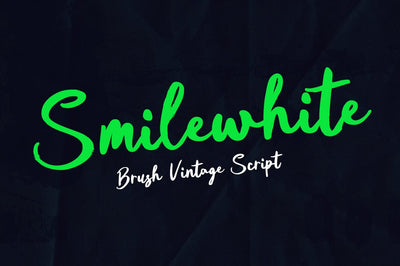
Smile White
Smile White brush with a creative atmosphere and perfect shape, inspired by today's beautiful display serifs. thick,
balanced and varied, born for luxury and beauty.
In my example I show how this script can be used. It's great for logotypes, branding, wedding invitations, romantic cards, retro labels, packaging, name spelling and more.
Smile White comes with beautiful uppercase and lowercase letters, numbers, and punctuation. In addition to the main character set,
there are many alternative characters, start and end sweeps.
. Multilingual.
. Ligatures.
. Style Set.